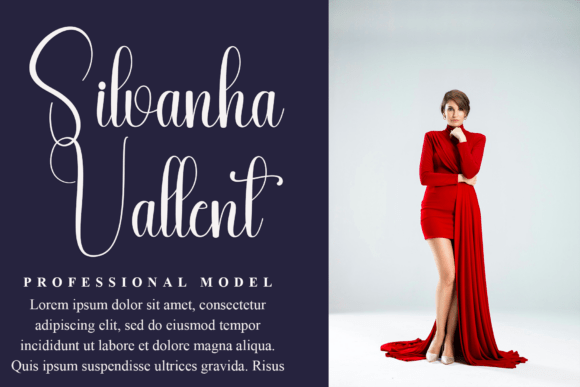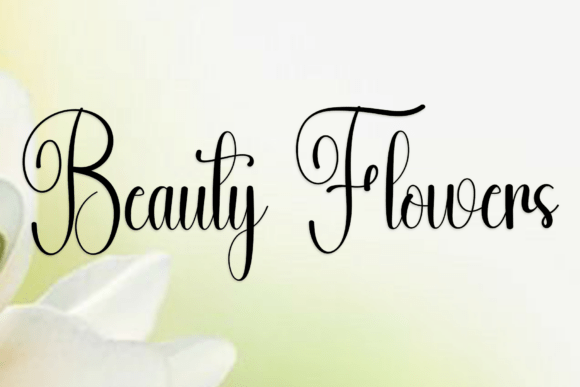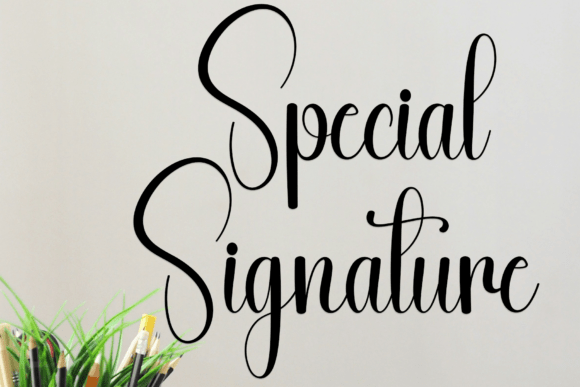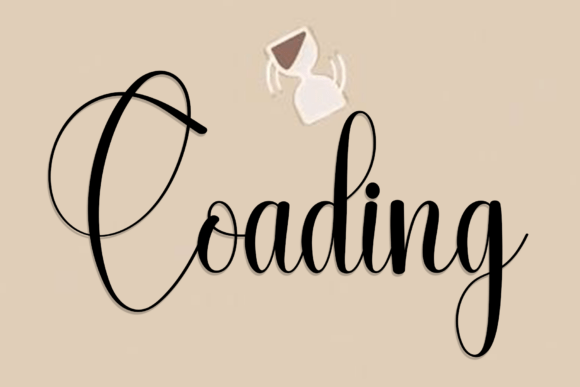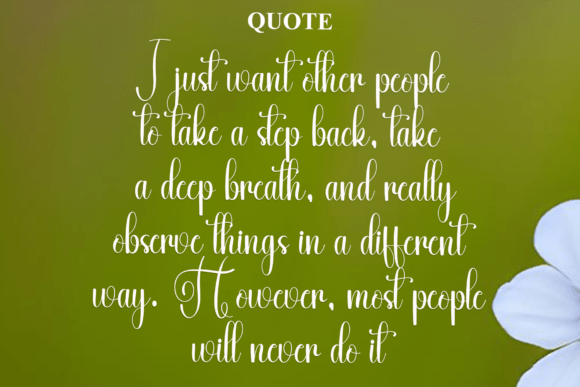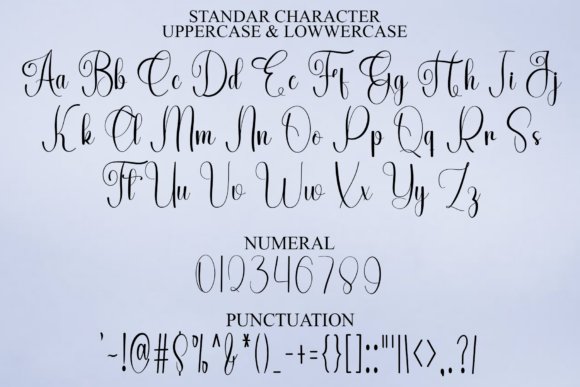
Introducing Good Girl Font: The Perfect Blend of Casual and Creative
Are you tired of using the same old fonts for your personal projects, invitations, and social media graphics? Look no further than Good Girl Font, a charming and creative typeface that exudes warmth and friendliness. With its round, playful strokes, Good Girl Font creates a relaxed and approachable feel that’s perfect for designers and crafters looking to add a personal touch to their work.
The Characteristics of Good Girl Font
Good Girl Font is a hand-drawn font that boasts a unique and playful aesthetic. Its round, smooth strokes give it a soft and inviting feel, making it perfect for designs that require a friendly and approachable tone. The font’s casual and creative vibe makes it ideal for a wide range of applications, from personal projects and invitations to social media graphics and more.
What Makes Good Girl Font Special?
Good Girl Font is a dream come true for designers and crafters who want to add a personal touch to their work. Whether you’re creating custom invitations, designing social media graphics, or working on a personal project, Good Girl Font is the perfect choice. Its unique and playful aesthetic will help your designs stand out from the crowd, and its friendly and approachable feel will make your work more relatable and engaging.
- Personal projects: Use Good Girl Font to add a personal touch to your scrapbooking, journaling, and other craft projects.
- Invitations: Create custom invitations for parties, weddings, and other special events with Good Girl Font.
- Social media graphics: Use Good Girl Font to create eye-catching social media graphics that will help your posts stand out from the crowd.
- Branding: Use Good Girl Font to create a unique and memorable brand identity for your business or personal brand.
Good Girl Font is a charming and creative typeface that’s perfect for designers and crafters who want to add a personal touch to their work. With its round, playful strokes and friendly and approachable feel, Good Girl Font is ideal for a wide range of applications, from personal projects and invitations to social media graphics and more. So why wait? Download Good Girl Font today and start creating unique and eye-catching designs that will help you stand out from the crowd.
Key Features of Good Girl Font:
- Hand-drawn font with a unique and playful aesthetic
- Round, smooth strokes create a soft and inviting feel
- Perfect for personal projects, invitations, social media graphics, and more